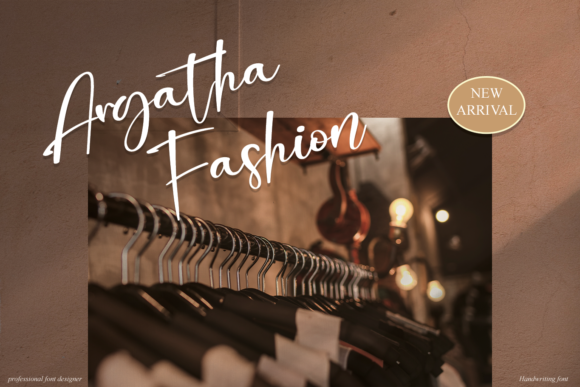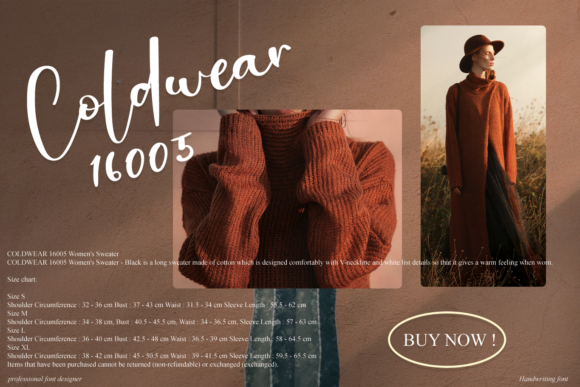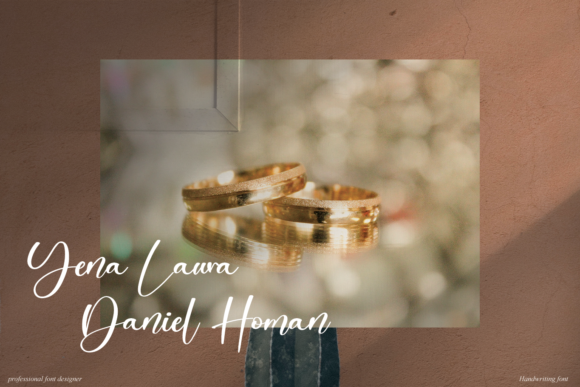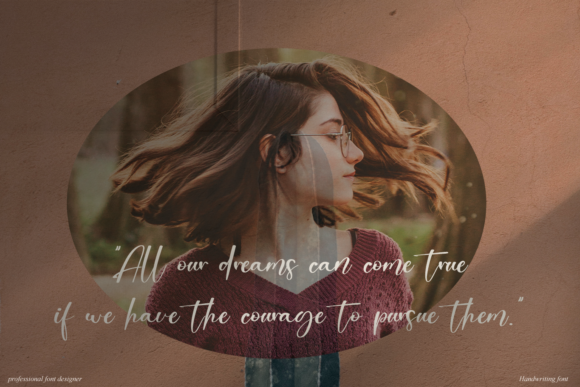
Best Moment Font
About Best Moment Font
Best Moment is a stylish and incredibly elegant script font. It looks stunning on wedding invitations, thank you cards, quotes, greeting cards, logos, business cards and every other design which needs a handwritten touch.